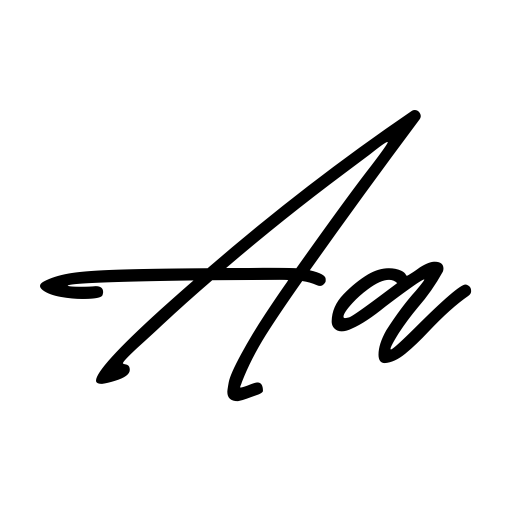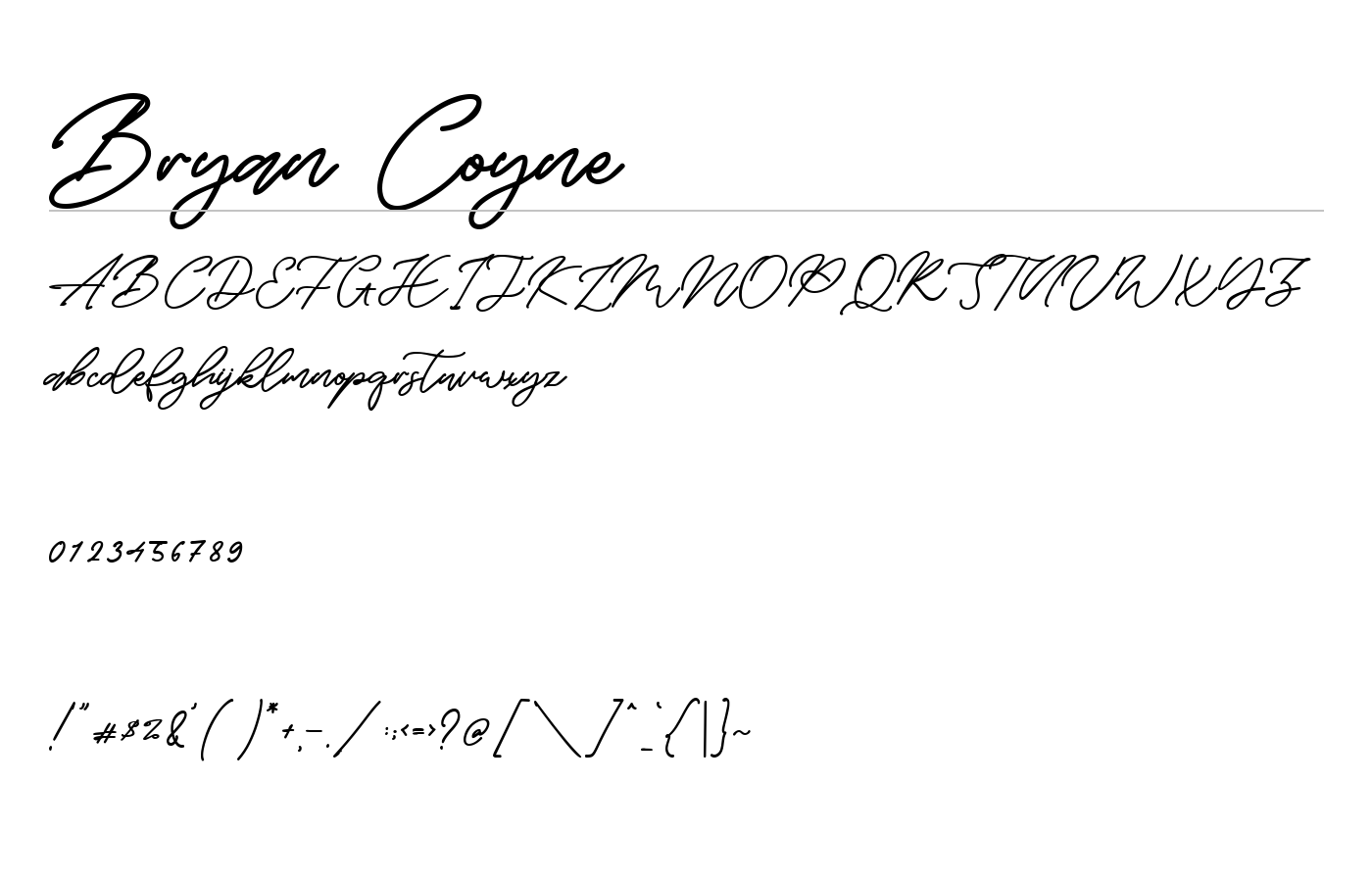
Bryan Coyne is an elegant, flowing script font with a refined, handwritten style that combines smooth curves and a slightly casual flair. Its slender, connected letterforms and moderate contrast give it a graceful, personal touch, making it ideal for invitations, branding, and editorial accents where a sophisticated yet approachable feel is desired. This font works beautifully for creative projects that need a stylish, expressive script that feels both modern and timeless.
Bryan Coyne Font
About Bryan Coyne Font
| Font family | Bryan Coyne Font |
| Designer | Staircase Studio |